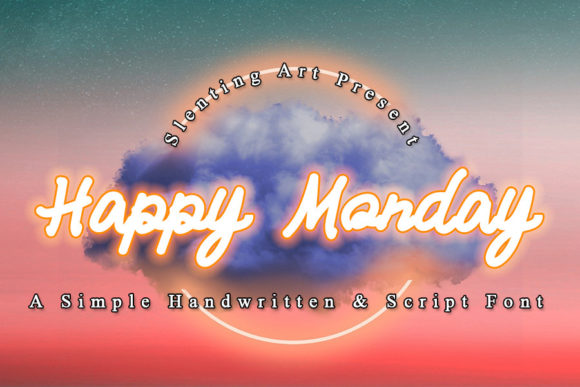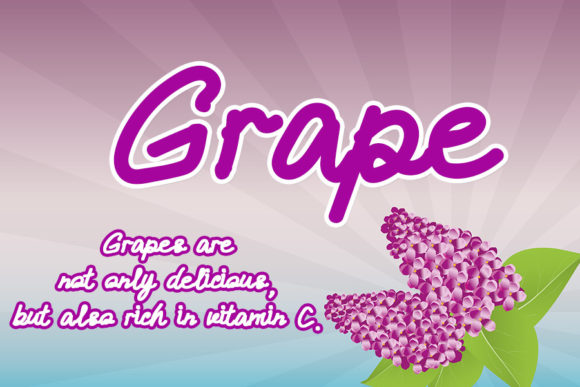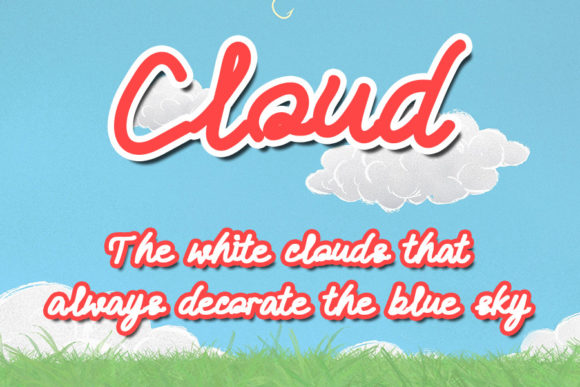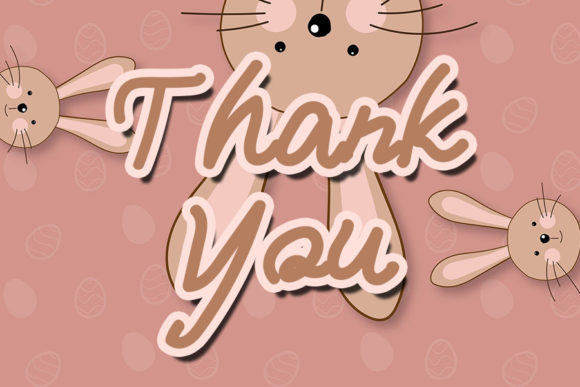
Happy Monday Font
About Happy Monday Font
Happy Monday is a delicate and flowing script font that exudes a sense of grace and elegance. With its classy, elegant, and modern look, this font is perfect for a wide range of applications including logos, branding, invitations, stationery, wedding designs, social media posts, and more.
The flowing lines and intricate details of Happy Monday create a sense of delicacy and refinement. Whether you’re designing a high-end brand identity, creating elegant wedding invitations, or crafting stylish social media graphics, this font will elevate your designs and leave a lasting impression.
The clean and refined appearance of Happy Monday makes it suitable for both professional and creative projects. Its versatility allows it to adapt to various design styles, from minimalistic to luxurious, making it a valuable asset in your creative toolbox.
Whether used in print or digital mediums, Happy Monday captures attention and conveys a sense of modern elegance. Its well-balanced characters and delicate flourishes create a visually pleasing and harmonious visual experience.
So, embrace the delicate and flowing beauty of Happy Monday and let it enhance your designs with its classy and modern charm. Add this font to your collection and explore the endless possibilities it offers in creating captivating and memorable designs.